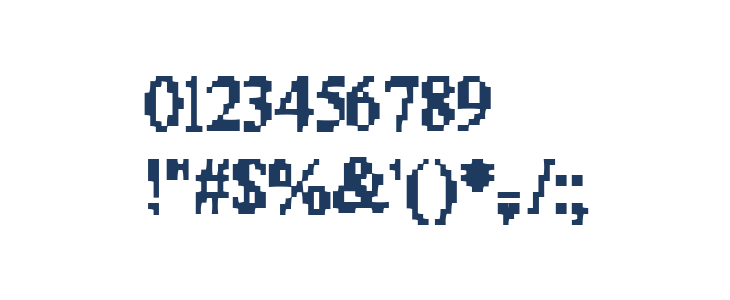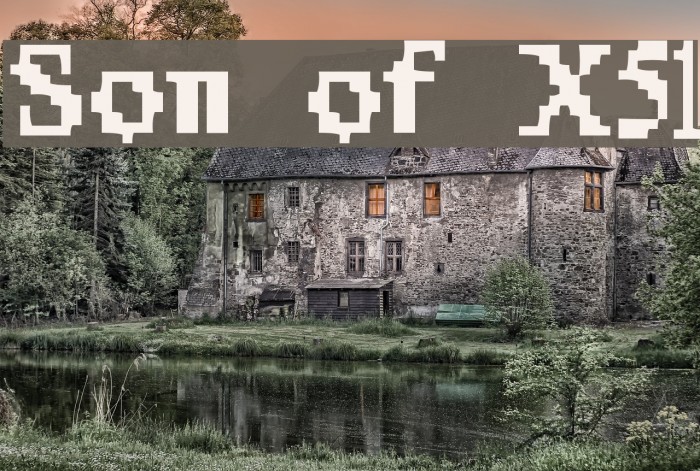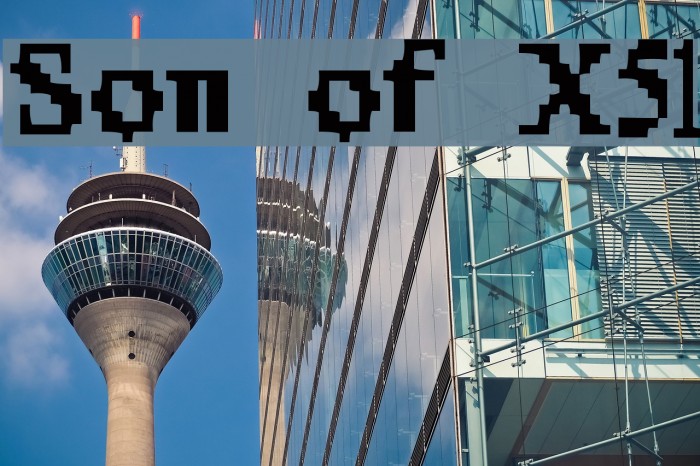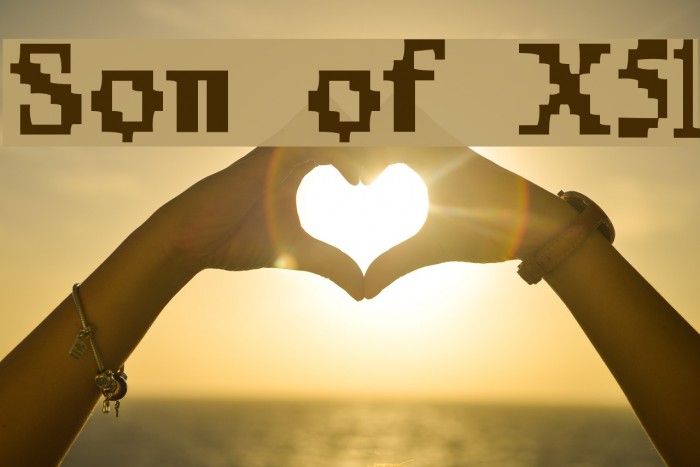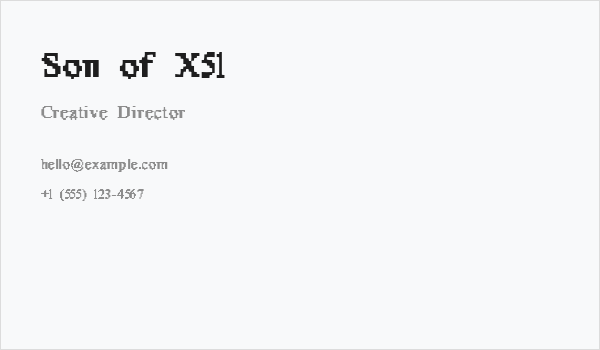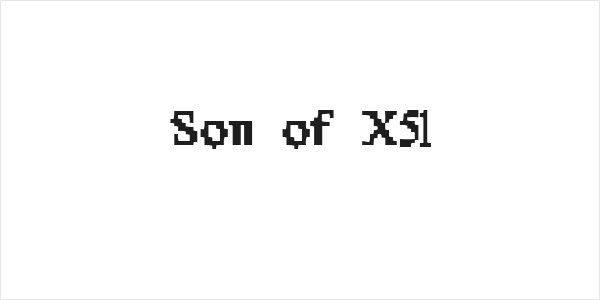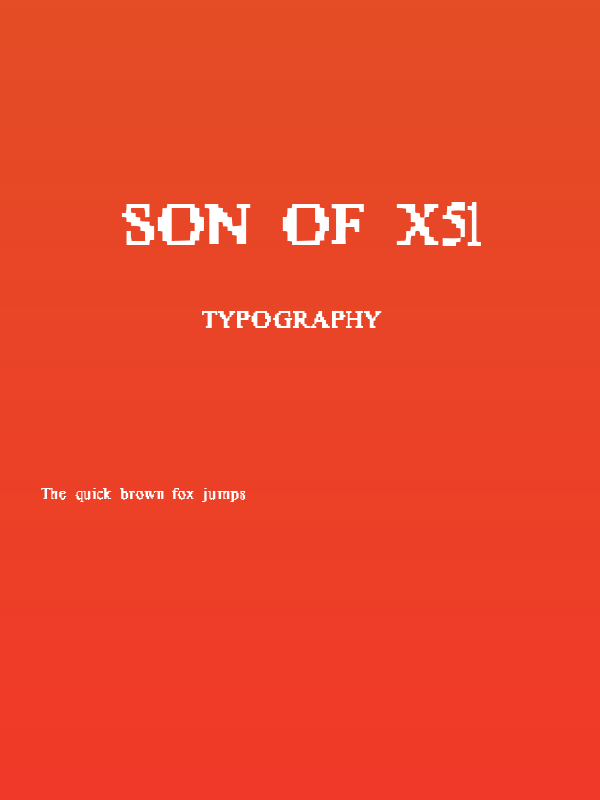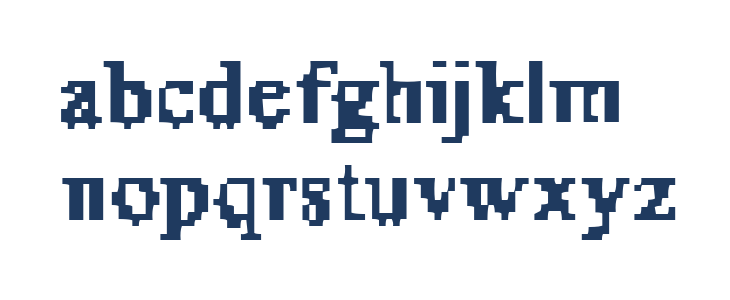
Son of X51 Font
Son of X51 Description
This font features a bold and blocky design with a pixelated, retro aesthetic reminiscent of early digital displays or video games. The characters are uniformly thick, giving them a strong presence on the page. The uppercase and lowercase letters maintain a consistent height, contributing to a cohesive look. The numbers and special characters follow the same style, ensuring uniformity across all text elements. The font's distinct style makes it ideal for projects that require a vintage or tech-inspired feel.
| Overall Style | Retro, Digital |
| Proposed Projects | Ideal for video game graphics, retro-themed posters, digital art, and tech-related branding. |